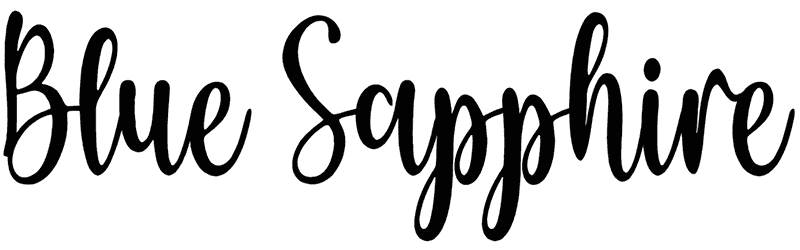
Blue Sapphire Font
A suitable font must be able to convey multiple complicated messages in the simplest possible form, and in this way, a lovely cursive font such as Blue Sapphire can fulfill your ambitions.
Due to its delicate character, this magical handwritten font can bring a vibe of personalization, sympathy, momentum, or drama to your artwork. Don’t forget that we have provided a limitless number of various fonts on the RB archive.